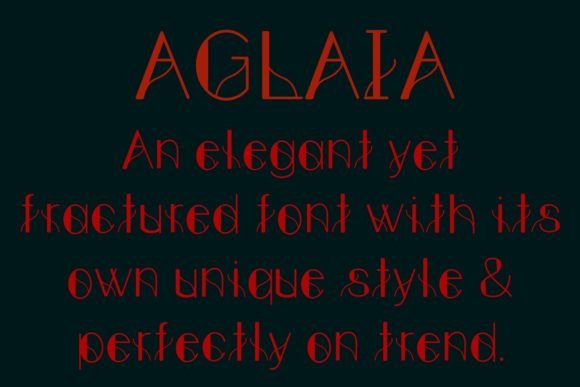
The Aglaia Font: A Unique and Stylish Addition to Your Design Toolkit
I’ll never forget the time I was working on a fashion branding project, and my client asked me to create a logo that was both elegant and edgy. I spent hours scouring the internet for the perfect font, but nothing seemed quite right. That was until I stumbled upon the Aglaia font. With its fractured look and stylish vibe, it was the perfect solution to my design dilemma.
Aglaia is a unique font that effortlessly balances elegance and edge. Its fractured look gives it a distinctive personality that’s perfect for fashion branding, music labels, stylish invitations, and logos. In this article, I’ll share my honest review of the Aglaia font, provide a practical guide on how to use it, and explore similar fonts and alternatives.
- ✅ Unique and stylish design that’s sure to turn heads
- ✅ Perfect for fashion branding, music labels, and stylish invitations
- ✅ Elegant and edgy at the same time – a rare find in the world of fonts!
- ✅ Highly versatile and can be used for a variety of design projects
- ⚠️ May not be suitable for body text due to its stylized nature
- ⚠️ Some characters may not work well in smaller sizes
- ⚠️ Limited availability of certain OpenType features
The Story Behind Aglaia
Aglaia was designed by a team of typographers who wanted to create a font that was both elegant and edgy. Inspired by the fractured look of urban landscapes, Aglaia combines clean lines with a touch of grit and attitude. The result is a font that’s perfect for designers who want to add a little edge to their work.
Q: What is the Aglaia font best used for?
A: Aglaia is best used for fashion branding, music labels, stylish invitations, and logos.
Q: Does Aglaia have OpenType features?
A: Yes, Aglaia has some OpenType features, including glyphs and stylistic alternates.